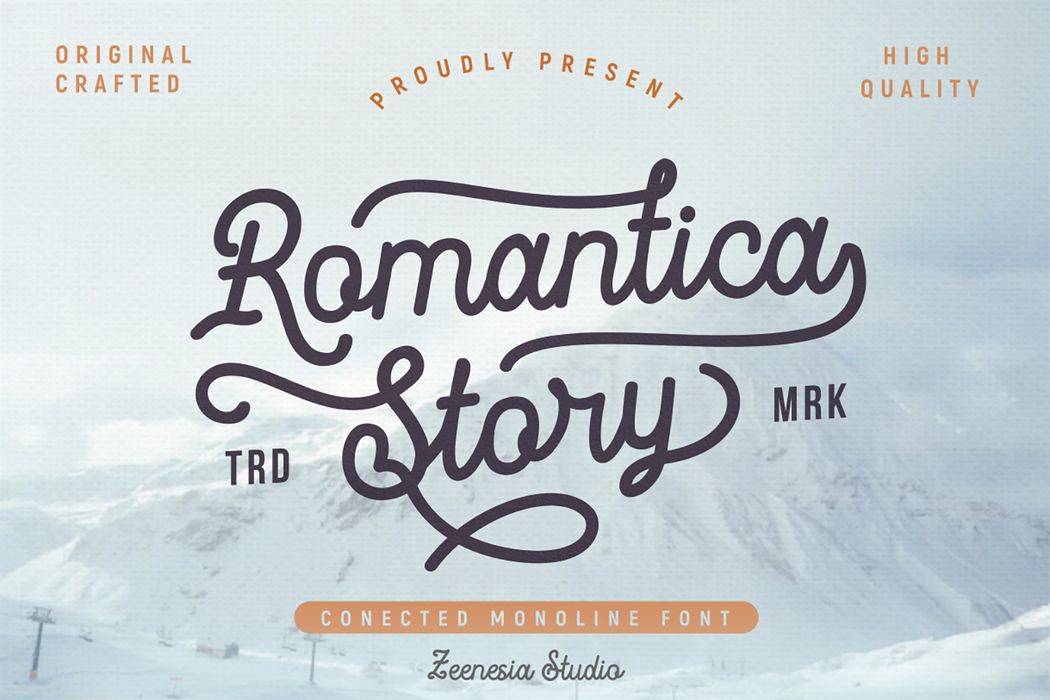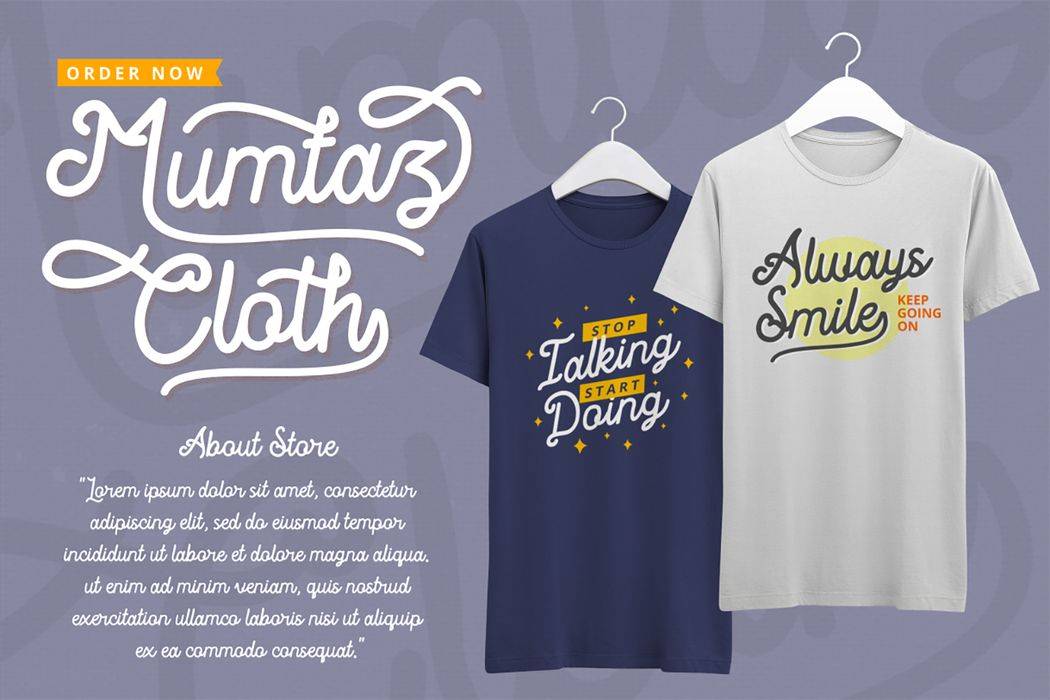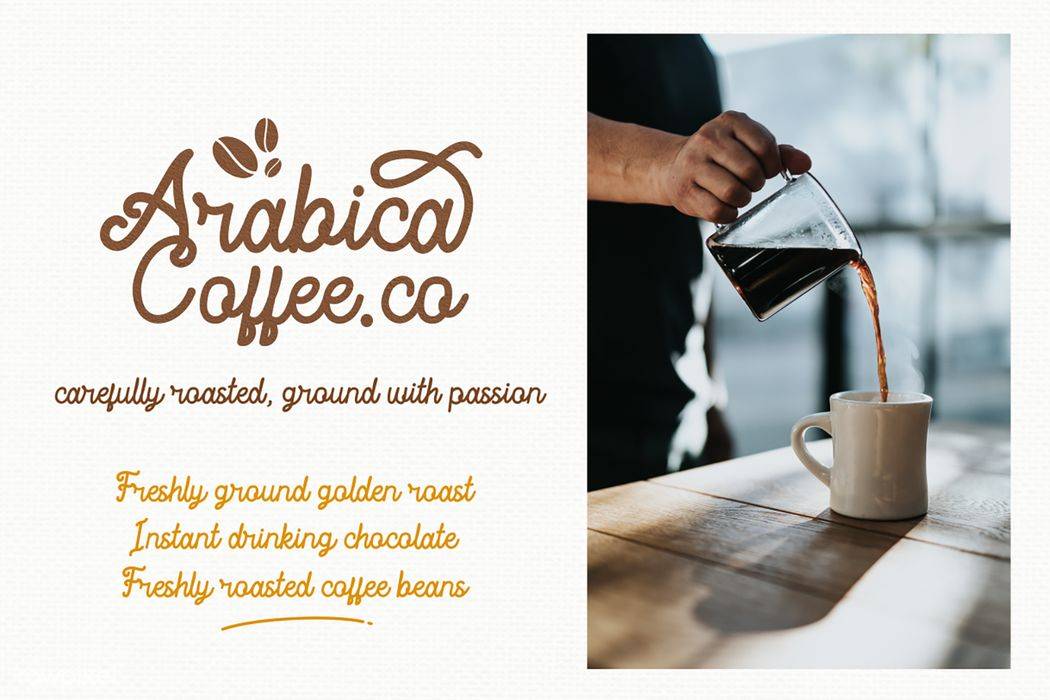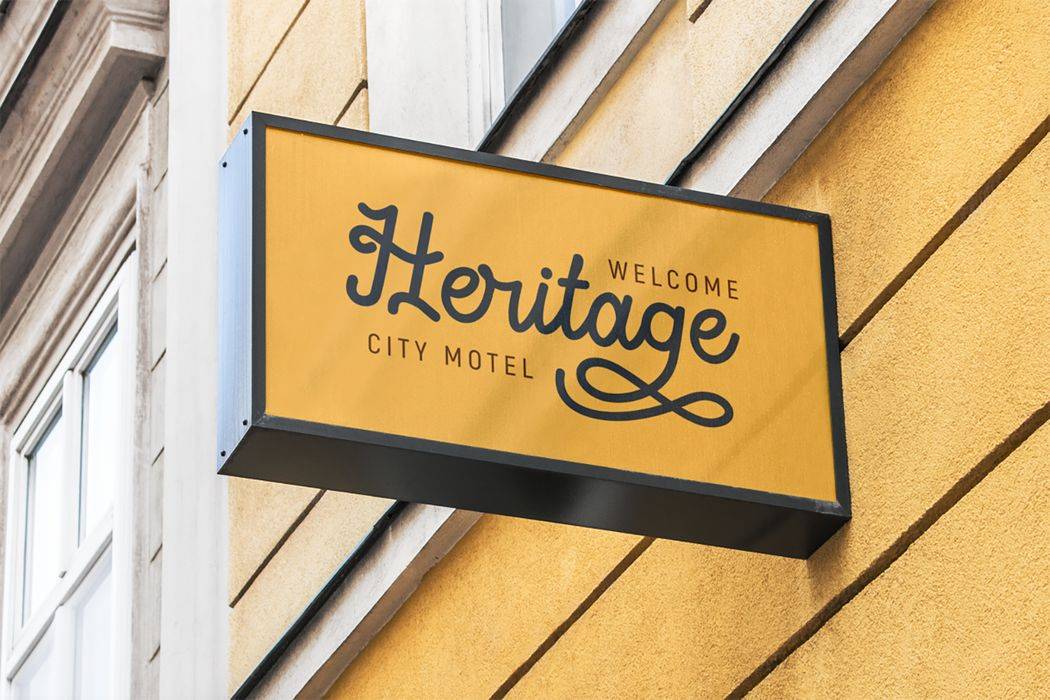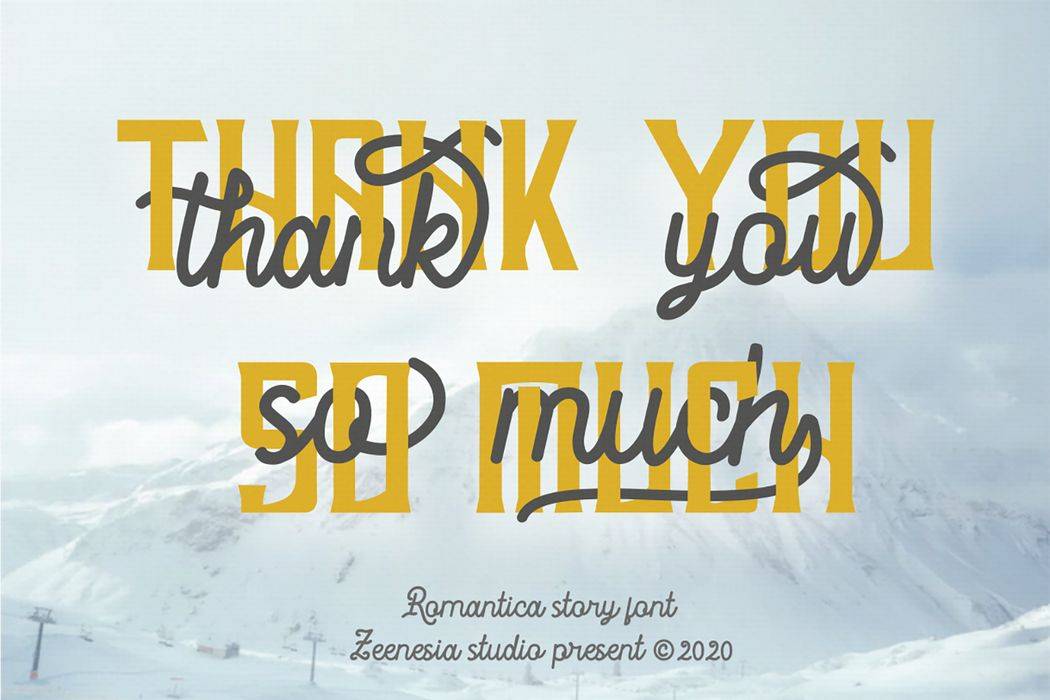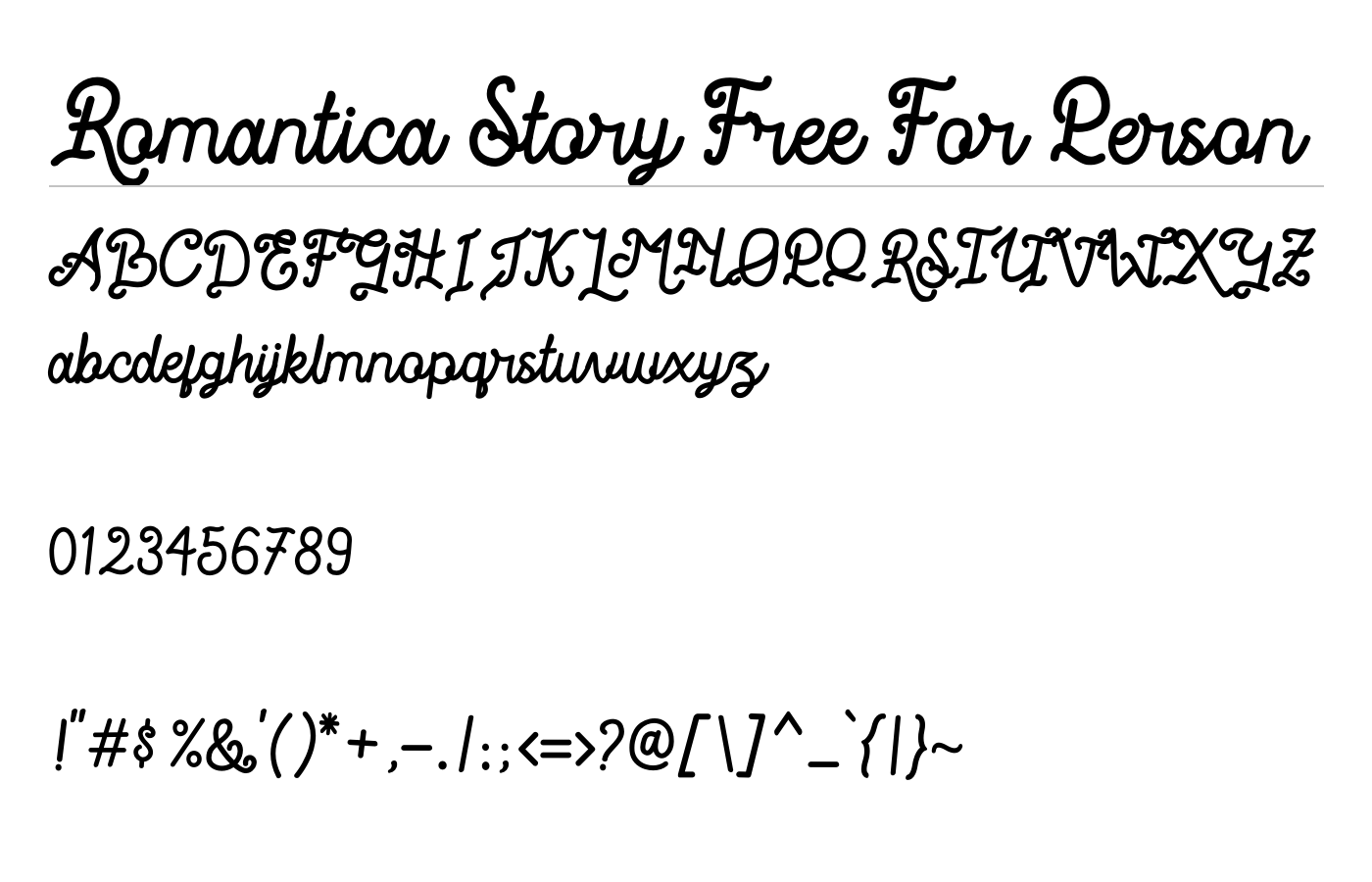
Romantica Story is a playful and charming script font with a smooth, casual feel. Its flowing cursive letterforms and slightly bold strokes give it a warm, friendly personality ideal for creative projects, invitations, and branding that wants to evoke a sense of fun and approachability. This font works well in headlines and logos where a touch of whimsical elegance is needed.
Romantica Story Font
About Romantica Story Font